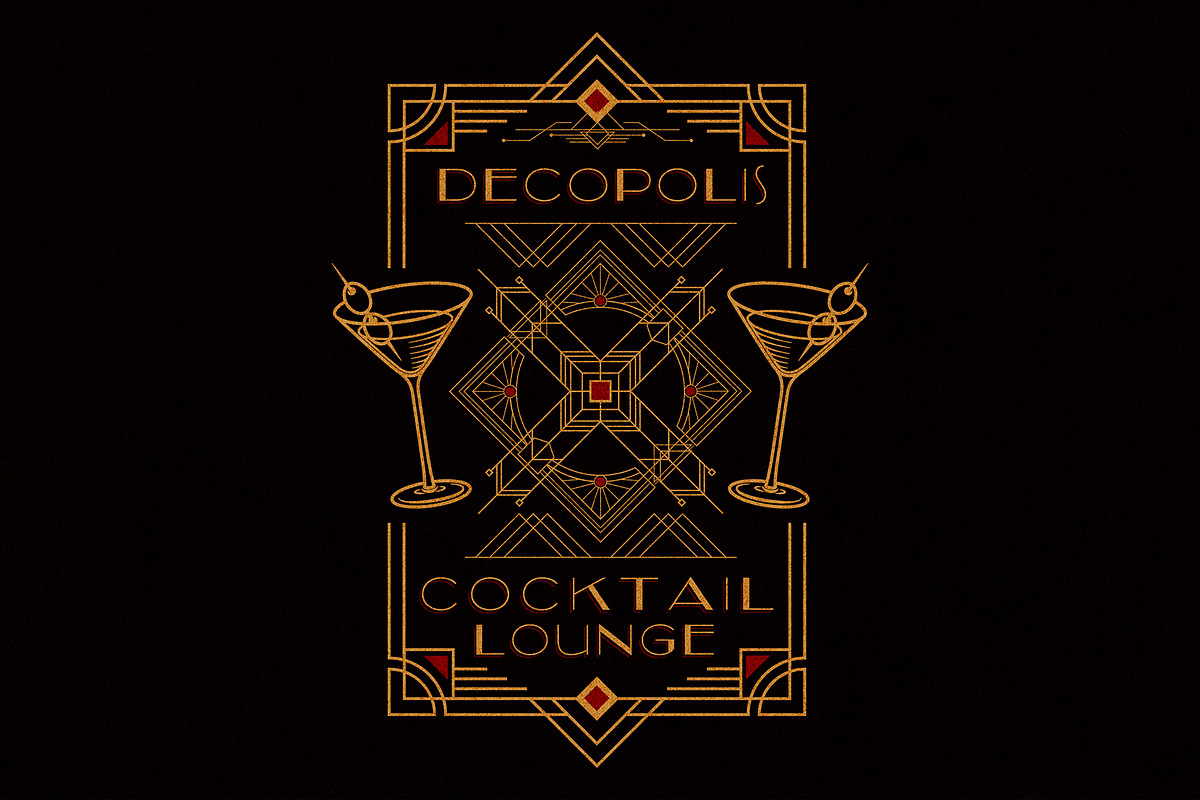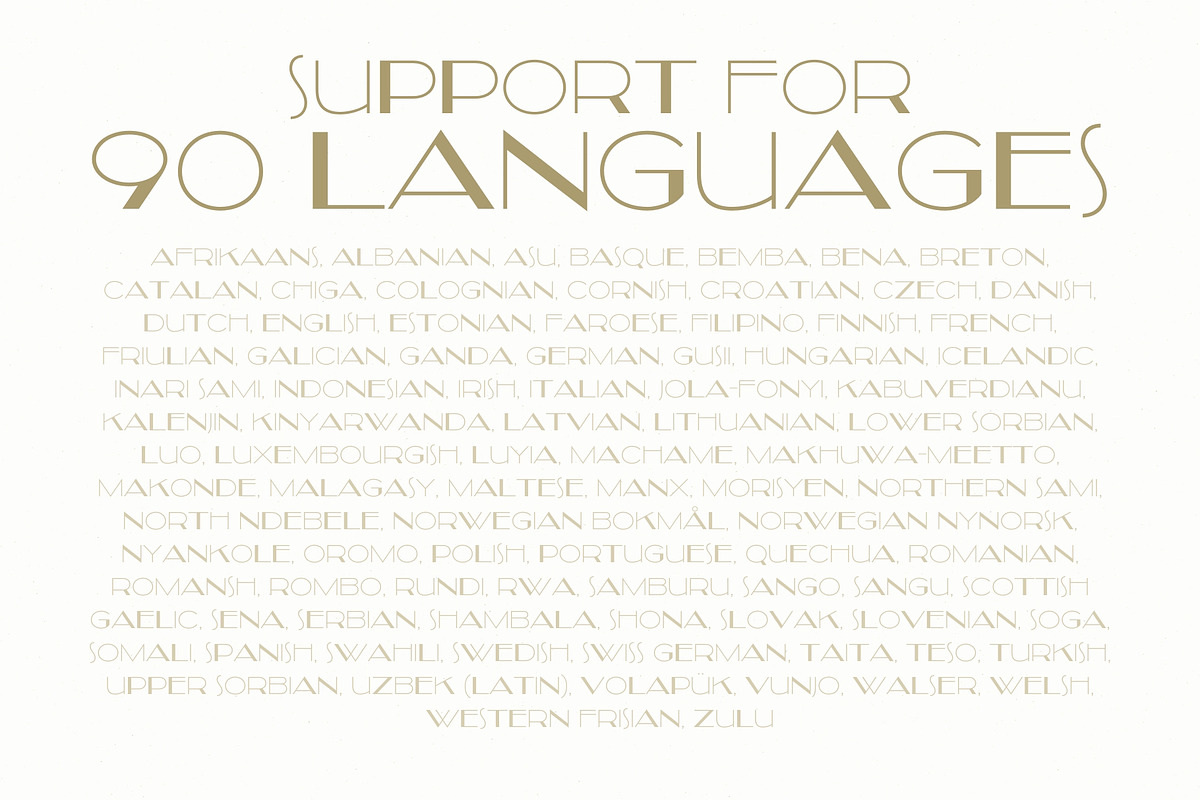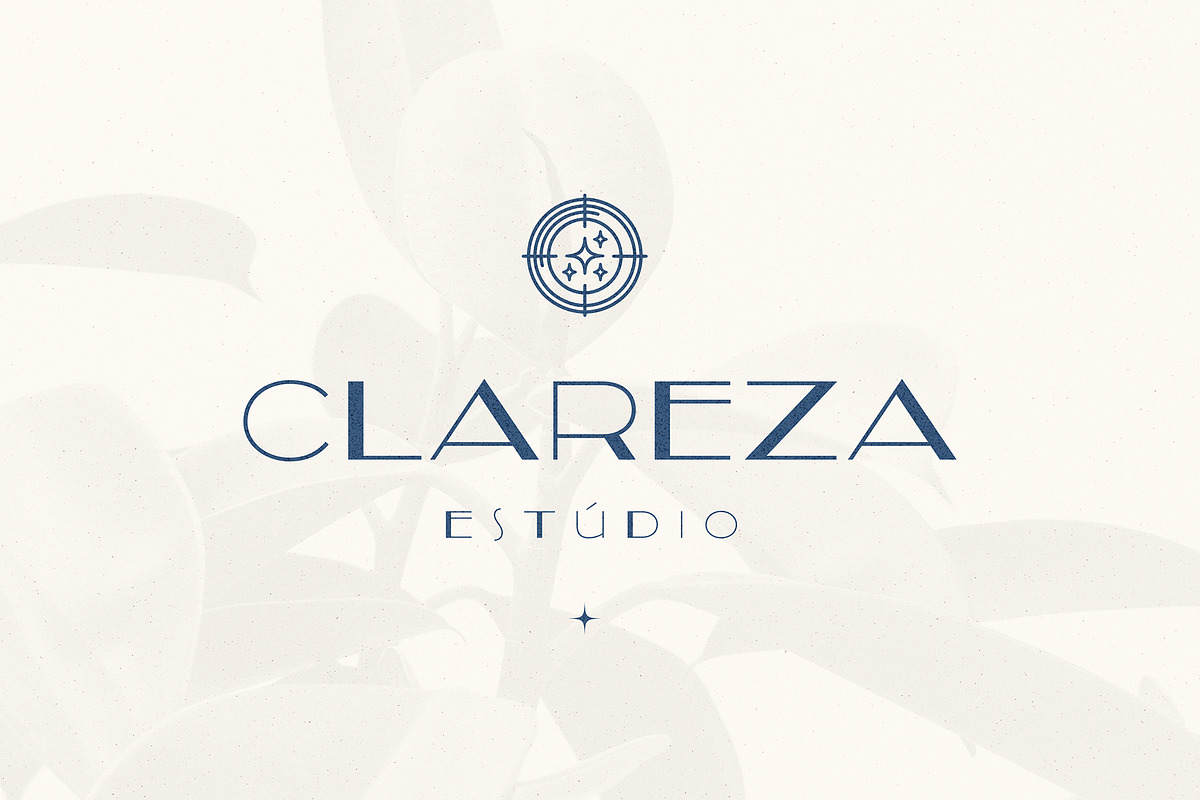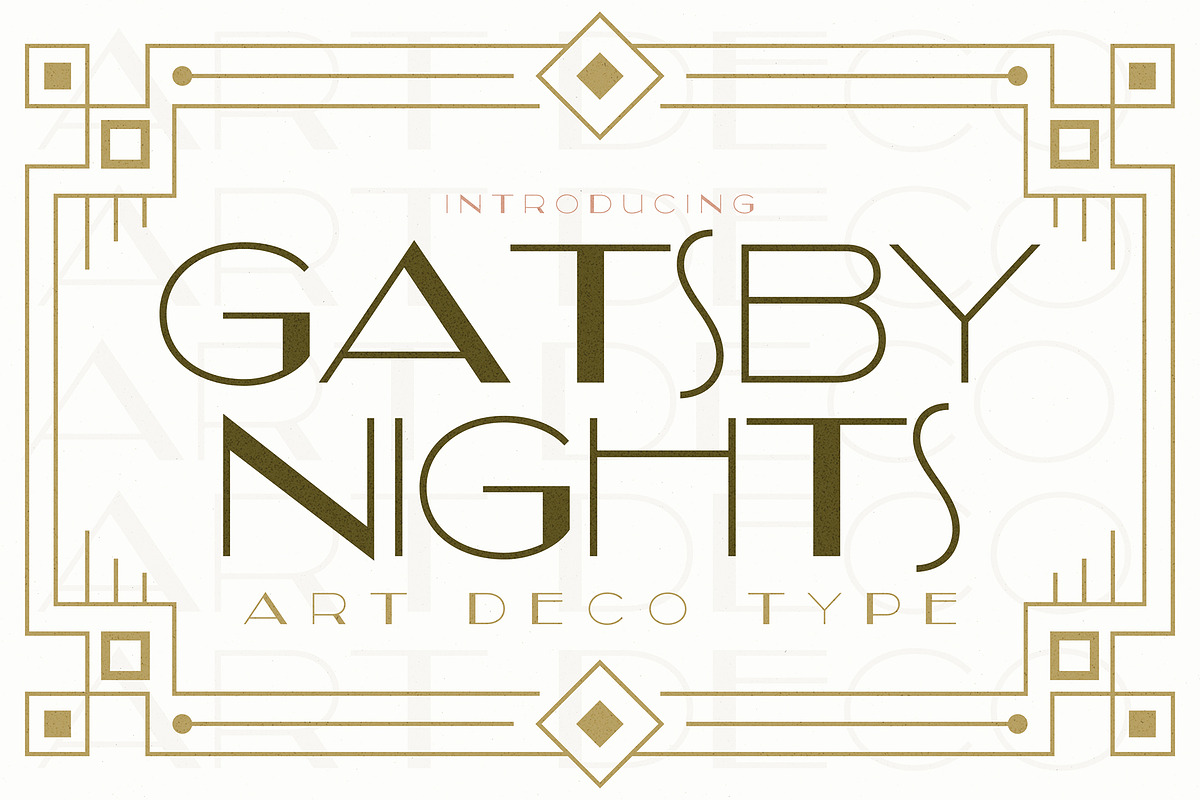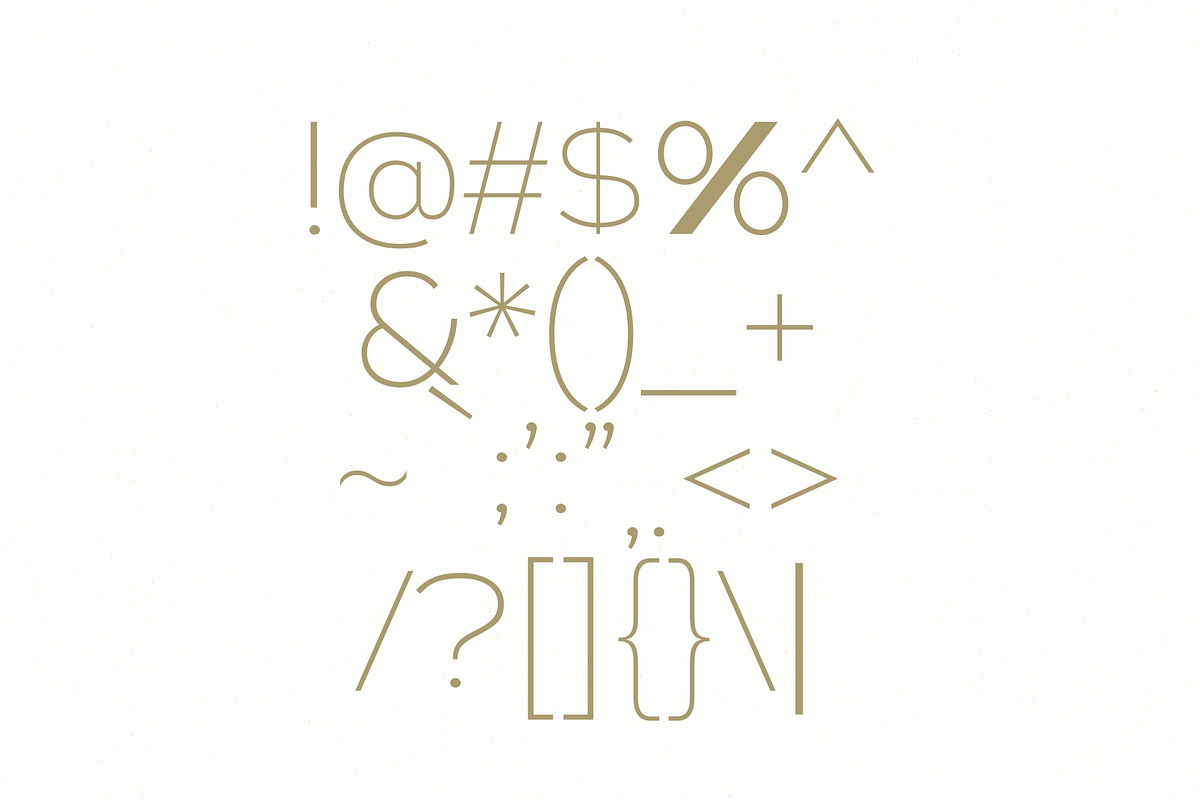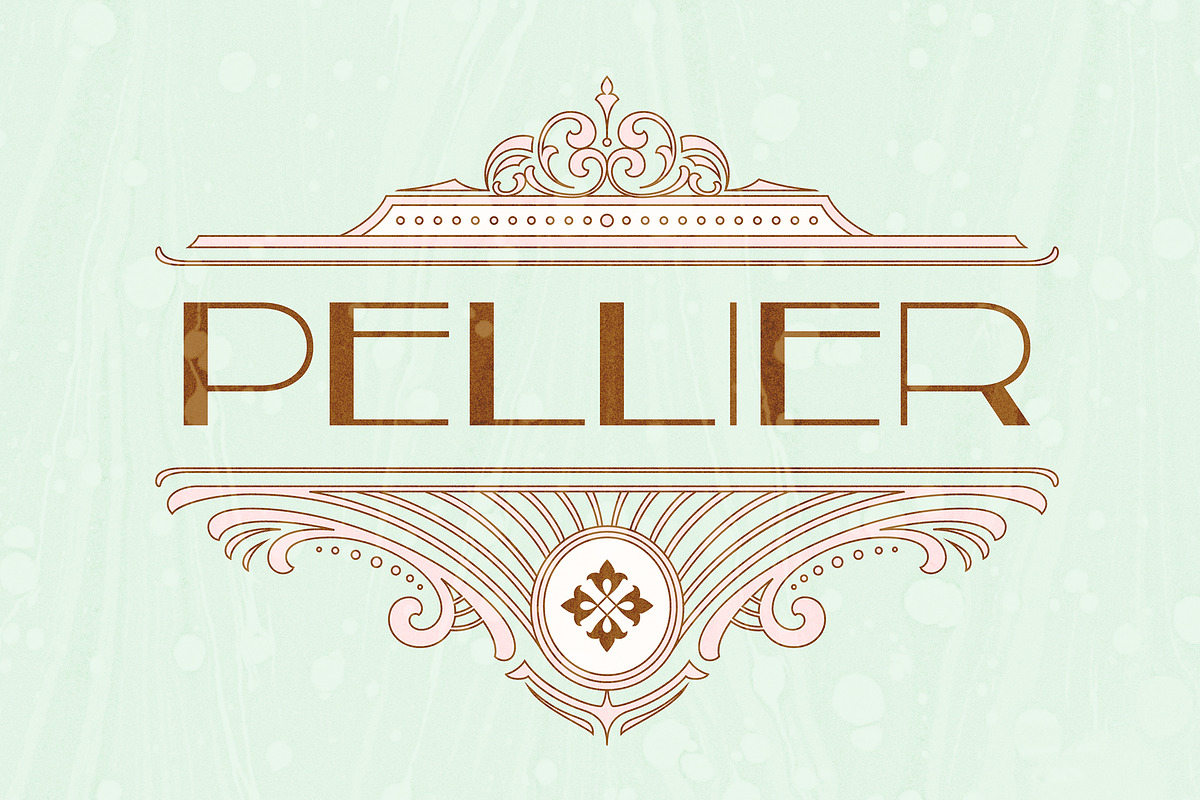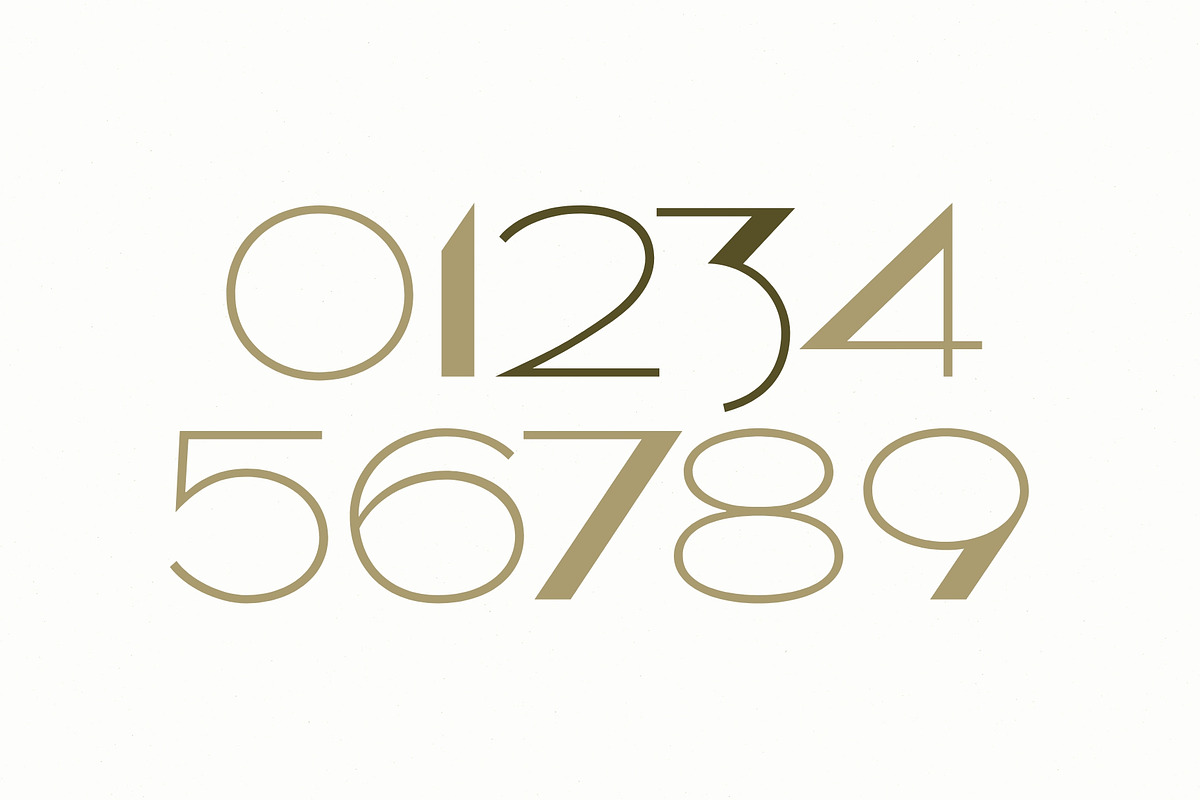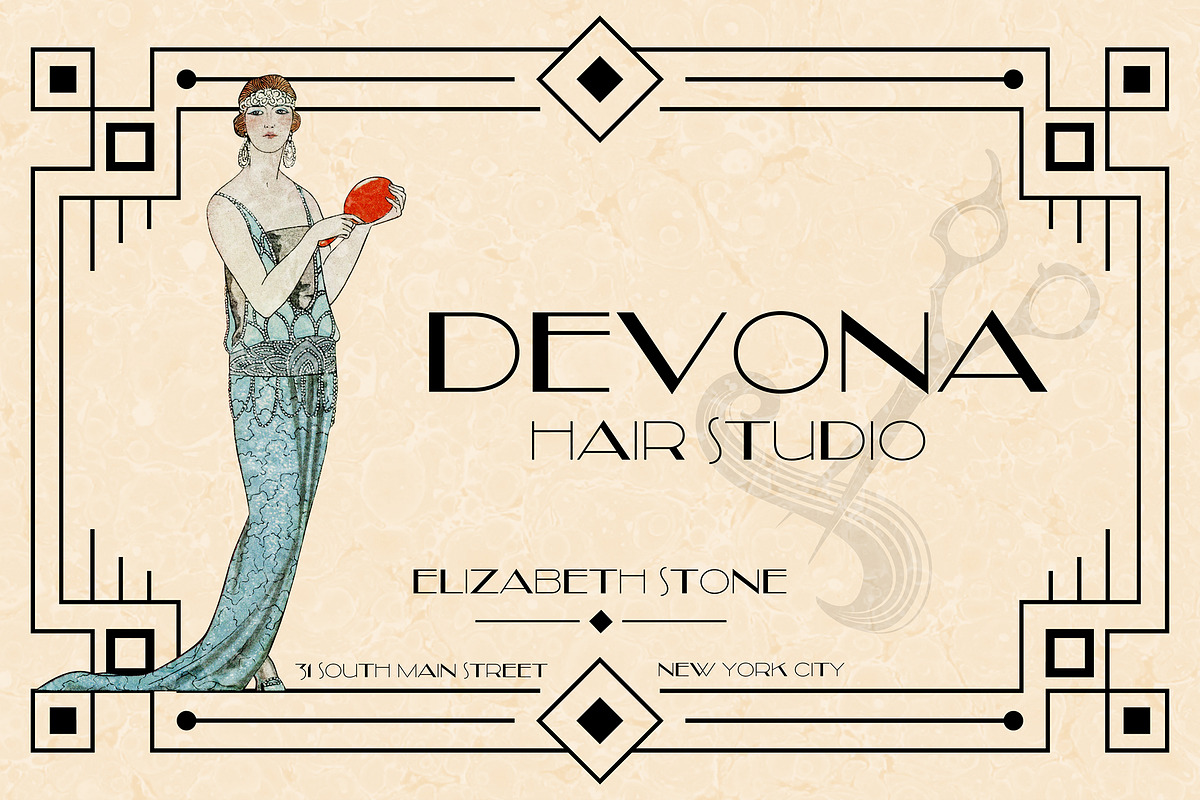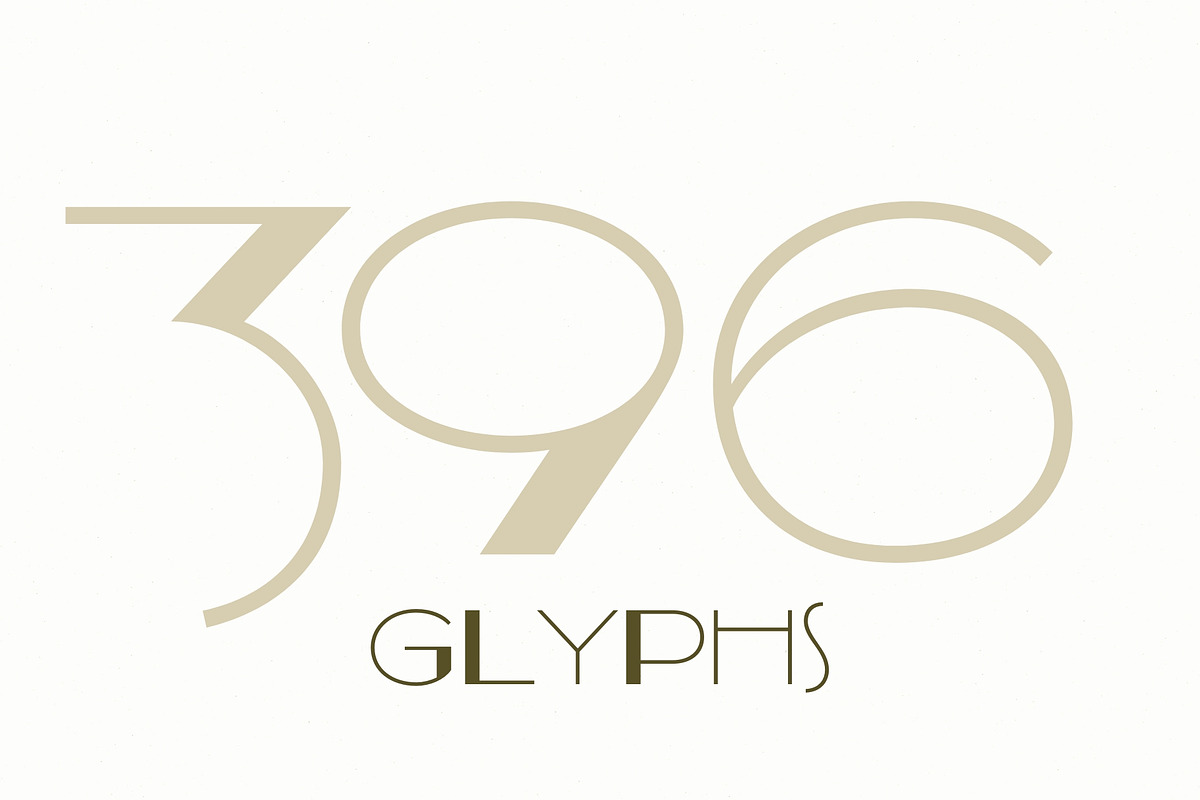
Gatsby Nights - Art Deco Typeface
Step into the shimmering world of the Roaring Twenties with Gatsby Nights, a striking Art Deco typeface that captures the opulence, rhythm, and romance of a bygone era. With its elegant geometry, lavish curves, and vintage charm, this font feels right at home on grand marquees, luxury branding, and anything that demands a touch of golden-age glamour.
Meticulously crafted to be both authentic and versatile, Gatsby Nights features 396 refined glyphs and supports over 90 languages—making it perfect for global designers with a taste for timeless sophistication. Whether you're crafting wedding invitations, editorial headlines, high-end packaging, or vintage posters, this typeface delivers the bold elegance your project deserves.
Why you'll love it:
- Authentic Art Deco aesthetics
- Supports 90+ languages
- 396 glyphs for versatility
- Ideal for branding, luxury design, and vintage-style creations
Let Gatsby Nights transport your typography into an era of champagne, jazz, and dazzling design.